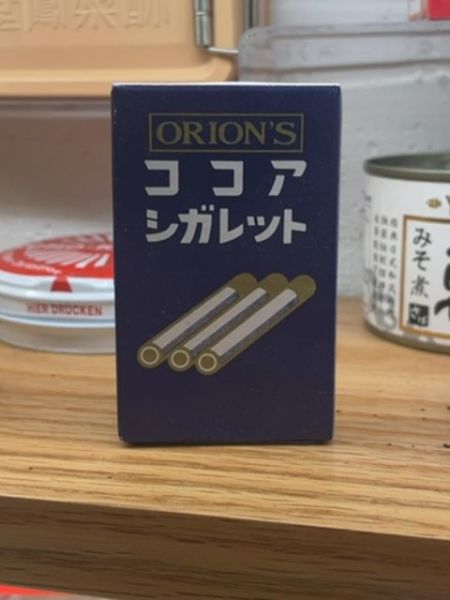
Orion's Cocoa Cigarettes
A candy product shaped like small cigarette sticks, made with cocoa to create a chocolatey taste, intended for playful consumption.
Country of Origin
Japan
Typography
The typography consists of bold, sans-serif fonts for the Japanese characters and the English brand name. The English text 'ORION’S' is enclosed in a rectangular border, using a block-serif typeface that evokes a sense of vintage charm, aligned with the playful imitation of a cigarette box.
Packaging
The packaging is a small, rectangular box with a deep blue background. It features an illustration of three cocoa sticks, and bold lettering in both English and Japanese, presenting a nostalgic and playful aesthetic reminiscent of vintage cigarette packs.
Facts
- The product is popular for its novelty and retro design.
- Despite resembling cigarettes, it contains no tobacco.
- It has been a beloved candy item in Japan for decades.